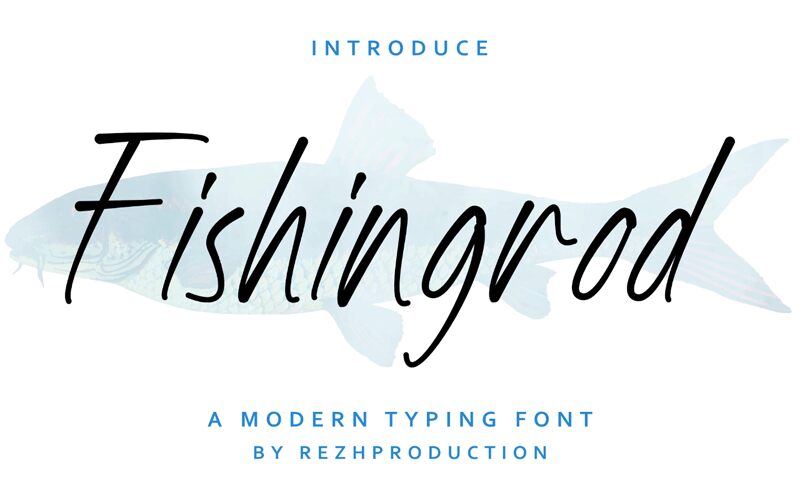
Fishingrod font is a modern handwritten font designed by Rezha P. Dewanto.
FISHINGROD
- a Unique Flat Typeface -
FISHINGROD is a beautiful light handwritten font with a unique feel and a stunning impact. It will add a luxury spark to any design project that you wish to create!